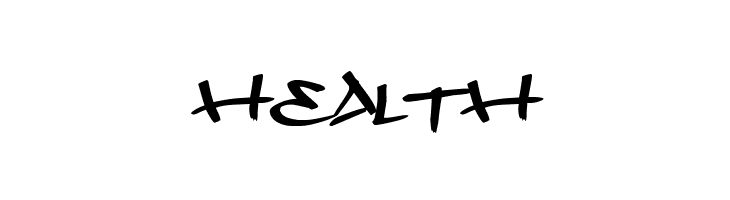
A bold, hand-painted style font with textured, brush-like strokes.
A bold, rugged font with a graffiti-inspired, three-dimensional look.
A bold, jagged font with a rugged, graffiti-like appearance.
A bold, hand-painted font with a rugged, distressed style.
A bold, distressed font with a vintage, textured appearance.
A bold, geometric font with rounded edges and a modern, futuristic style.
A futuristic dot matrix font with a digital, pixelated style.
A bold, geometric font with interconnected lines and modular shapes.
A futuristic, geometric font with interconnected lines and circles.
A whimsical, handwritten font with elongated, irregular letterforms.
A playful, bold font with rounded, bubble-like characters and high contrast.
A bold, playful font with thick, rounded characters and a whimsical style.
A bold, blocky font with a geometric and industrial style.
A rugged, runic-inspired font with bold, jagged characters.
A playful, bold font with a hand-drawn, whimsical style.
A playful, handwritten font with a casual and friendly vibe.
A scratchy, hand-drawn font with a dynamic and textured style.
A sketchy, hand-drawn font with energetic, overlapping strokes.
A playful, bold, hand-drawn font with thick, rounded strokes and a lively appearance.
A bold, textured font with a playful, cloud-like appearance.
A bold, playful font with a fluffy, cloud-like appearance.
A playful, curly font with bold, rounded characters and whimsical swirls.
A bold, playful font with a graffiti-like, urban style.
A bold, playful font with a graffiti-inspired style and irregular shapes.
A bold, playful font with an edgy, graffiti-inspired style.
A bold, playful font with an urban, graffiti-inspired style.
A bold, playful font with a youthful, urban vibe and rounded, chunky characters.
A graffiti-inspired font with bold, jagged strokes and an urban, edgy style.
A bold, hand-drawn font with a playful, textured appearance.
A playful, bold font with rounded, bubbly characters.
A bold, playful font with a unique diagonal striped pattern.
A bold, playful font with a hand-drawn, energetic style.